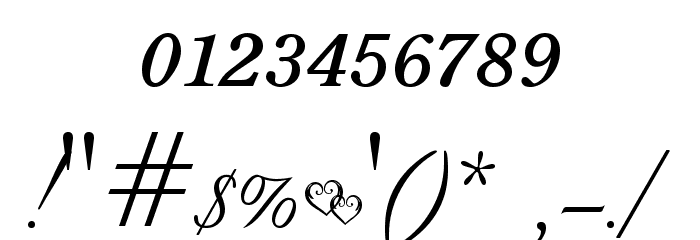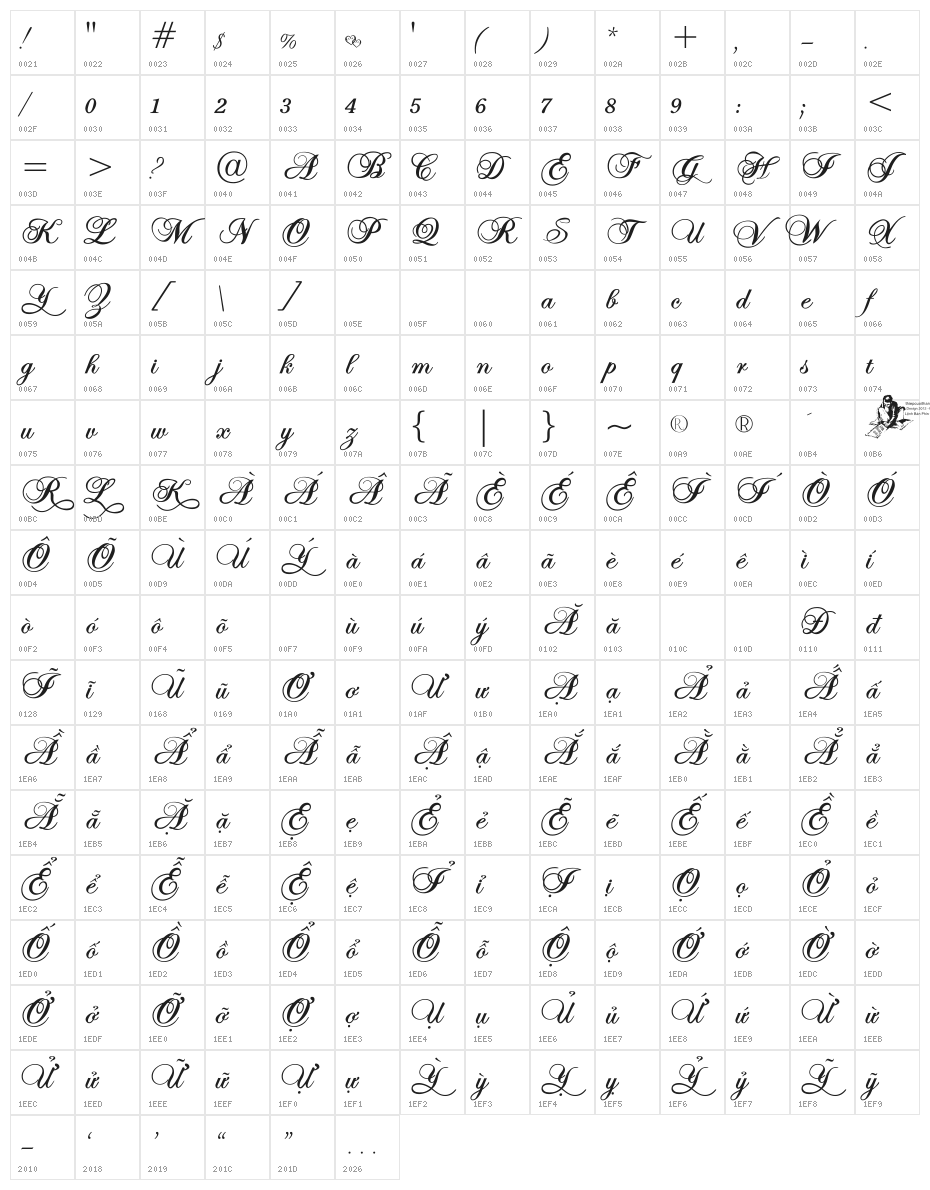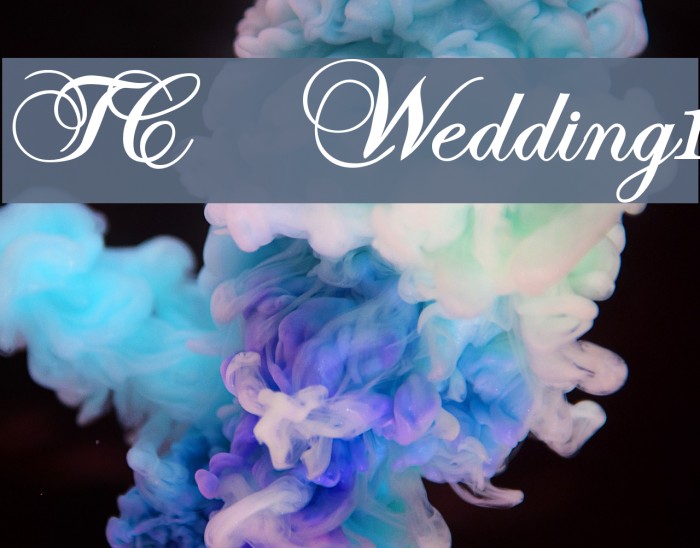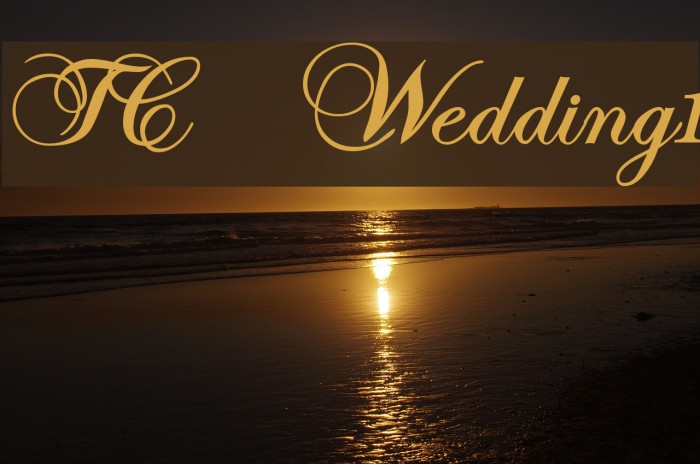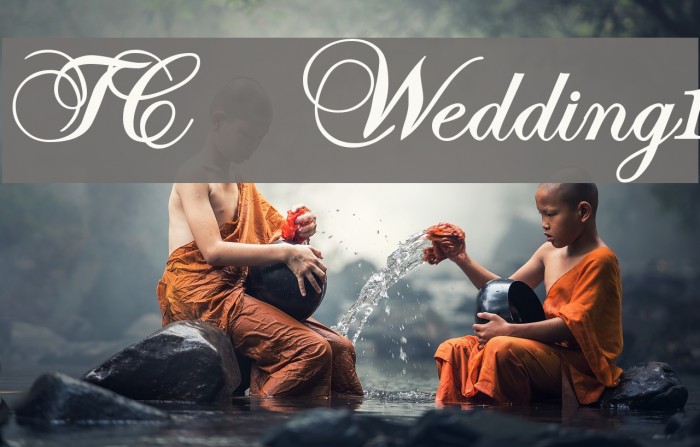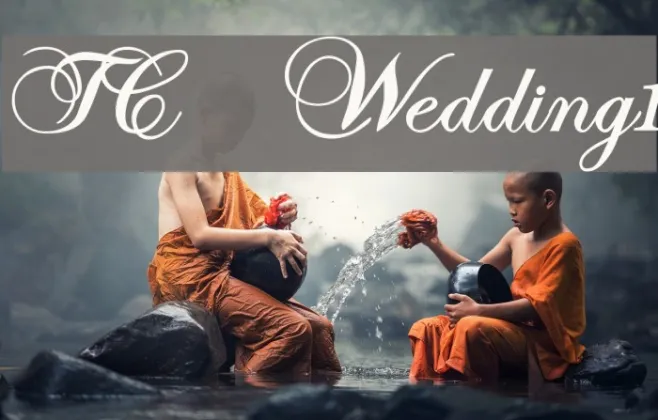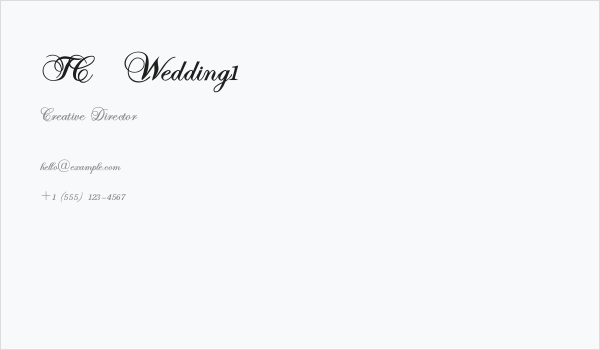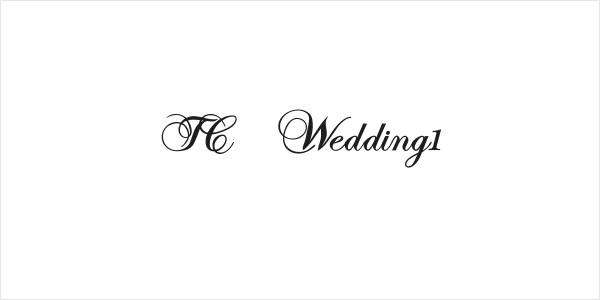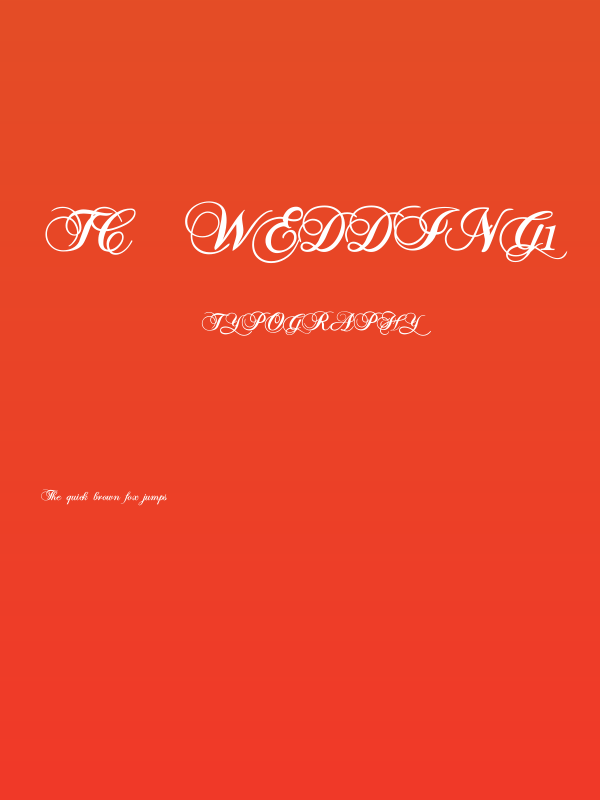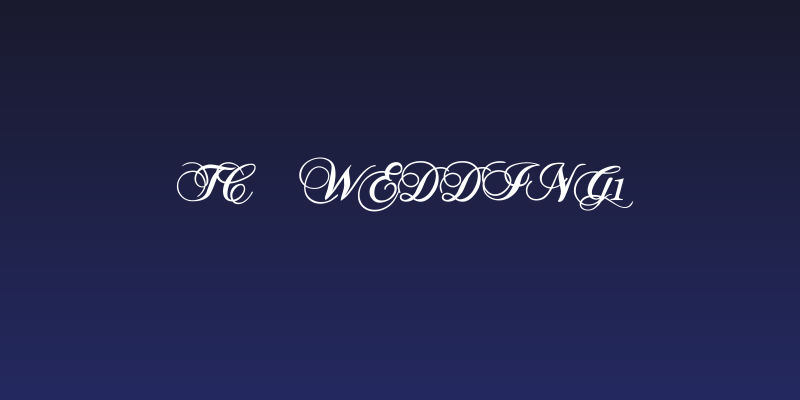
TC _Wedding1 Font
TC _Wedding1 Description
This elegant script font features a flowing, cursive style with intricate loops and flourishes, creating a sophisticated and romantic appearance. The uppercase letters are particularly ornate, with sweeping curves and decorative elements that enhance their visual appeal. The lowercase letters maintain a consistent style, offering a smooth and connected look that is both graceful and legible. The numerals are designed to complement the overall aesthetic, with a similar attention to detail and fluidity. Special characters are included, featuring unique embellishments that add to the font's charm. This font is ideal for formal occasions, invitations, and any project that requires a touch of elegance and refinement.
Overall StyleElegant, Romantic
Use CaseInvitations, Formal events, Branding
Proposed ProjectsWedding invitations, formal event programs, elegant branding, romantic greeting cards.